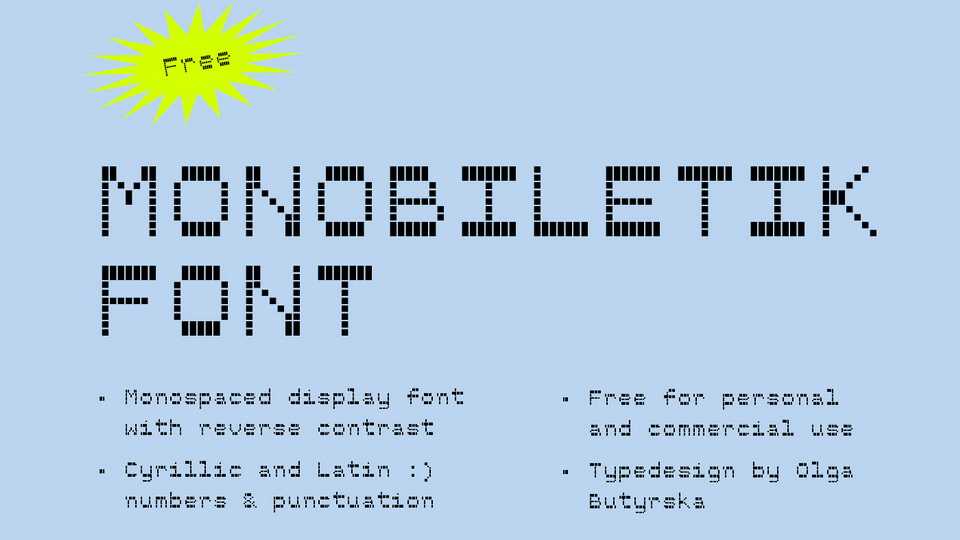
Download Monobiletik font, a monospaced display typeface with reverse contrast, Cyrillic and Latin support. Monobiletik is ideal for posters, labels, badges and other contemporary graphic artworks.
Designer: Olga Butyrska